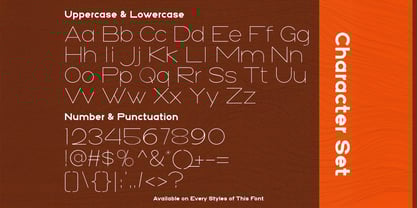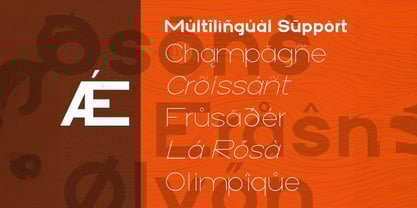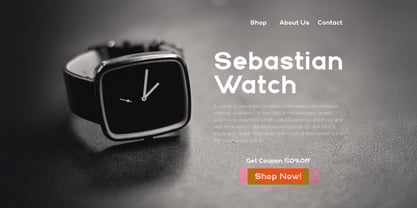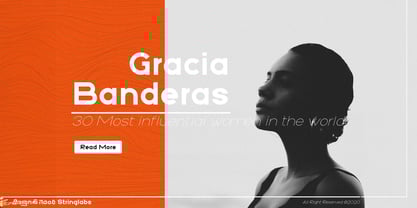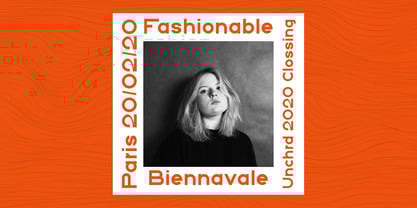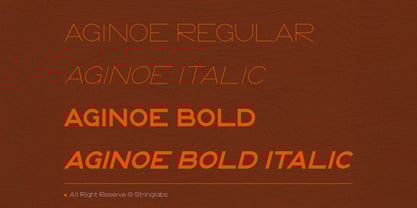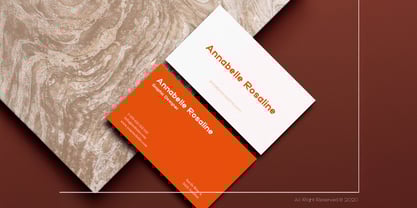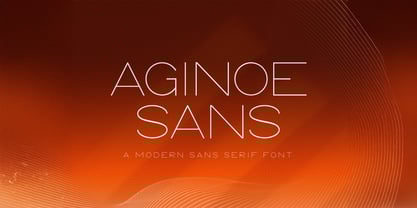
The Aginoe Sans Font Family was designed by Virgiawan Listanto and published by Stringlabs Creative Studio. Aginoe Sans contains 4 styles and family package options. More about this family
Aginoe Sans is a simple and thin lettered sans serif font, that combines perfect readability with a clean and modernist lettering design. The font is also available in a regular, italic, bold italic and bold version.
Designers: Virgiawan Listanto
Foundry: Stringlabs Creative Studio
Aginoe Sans